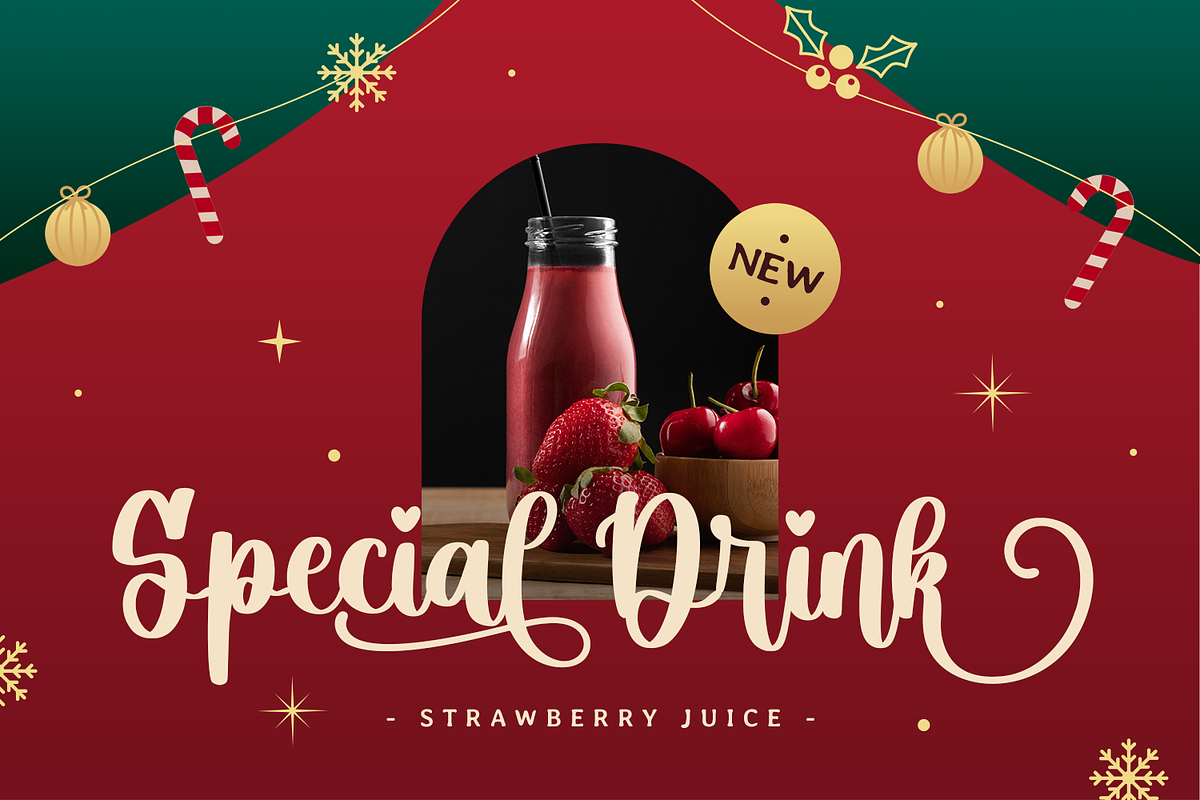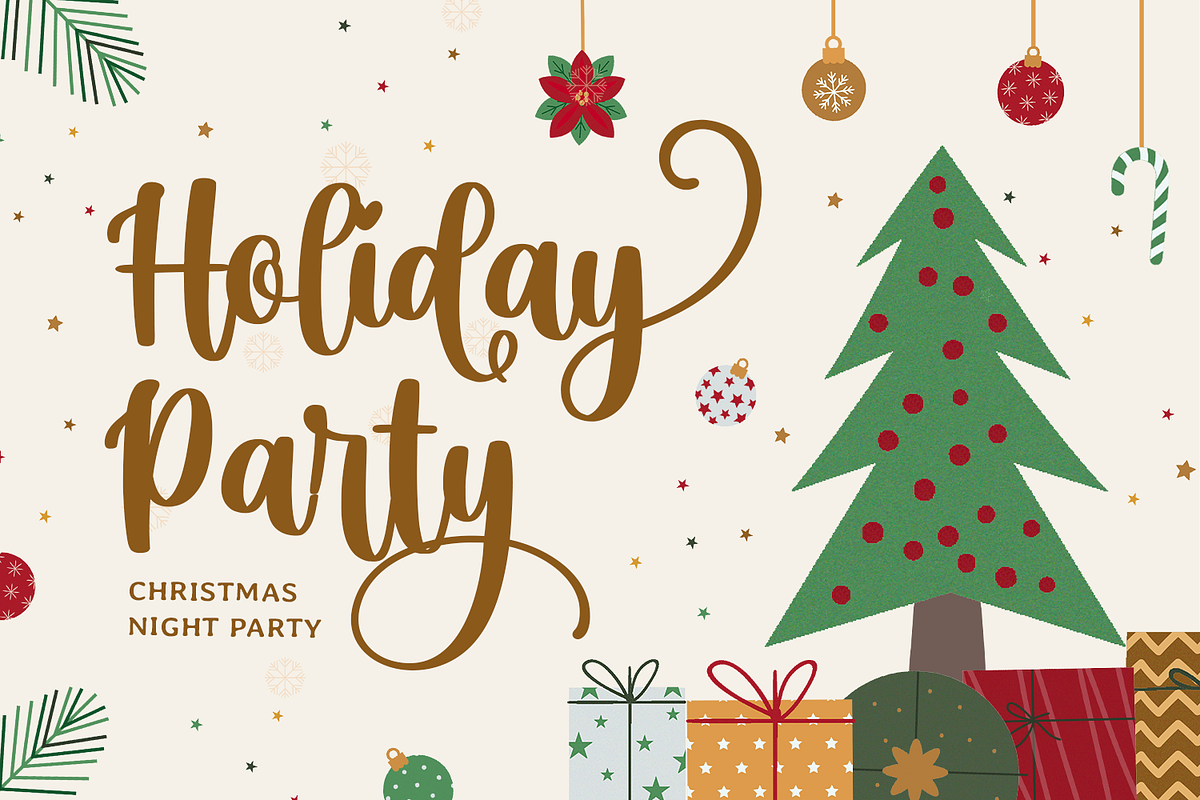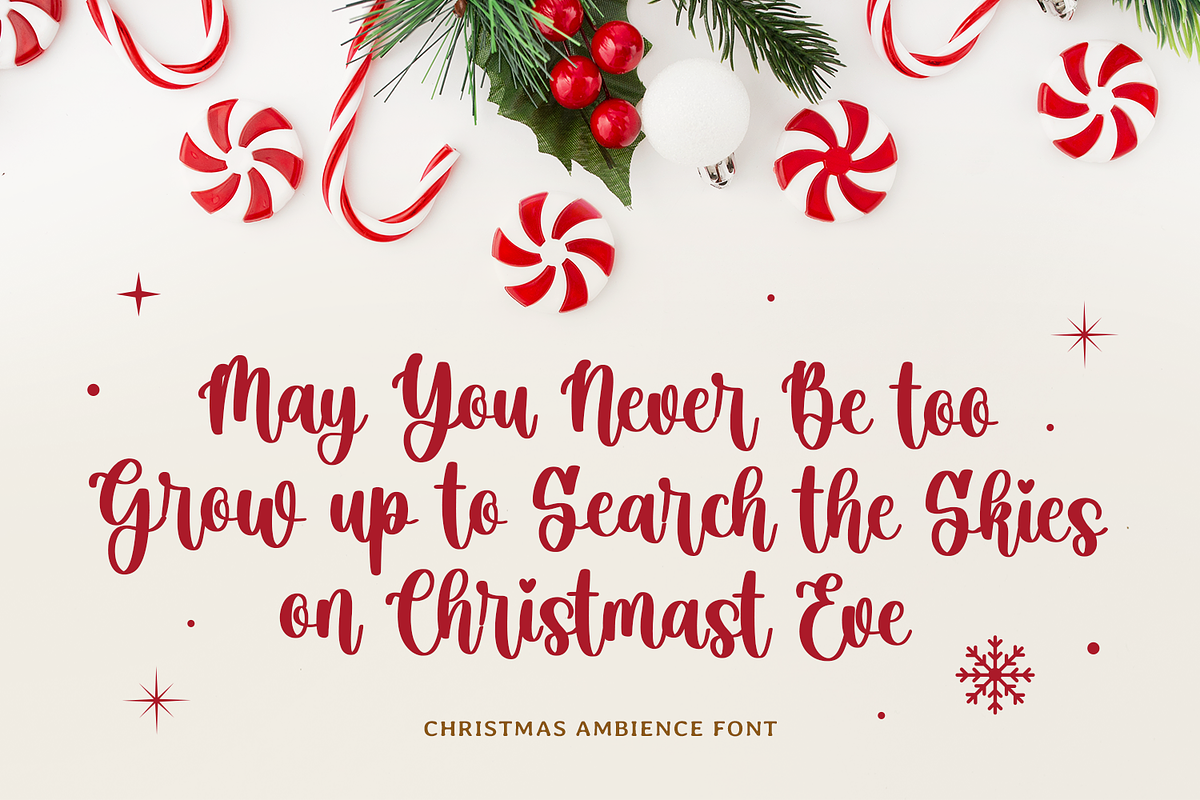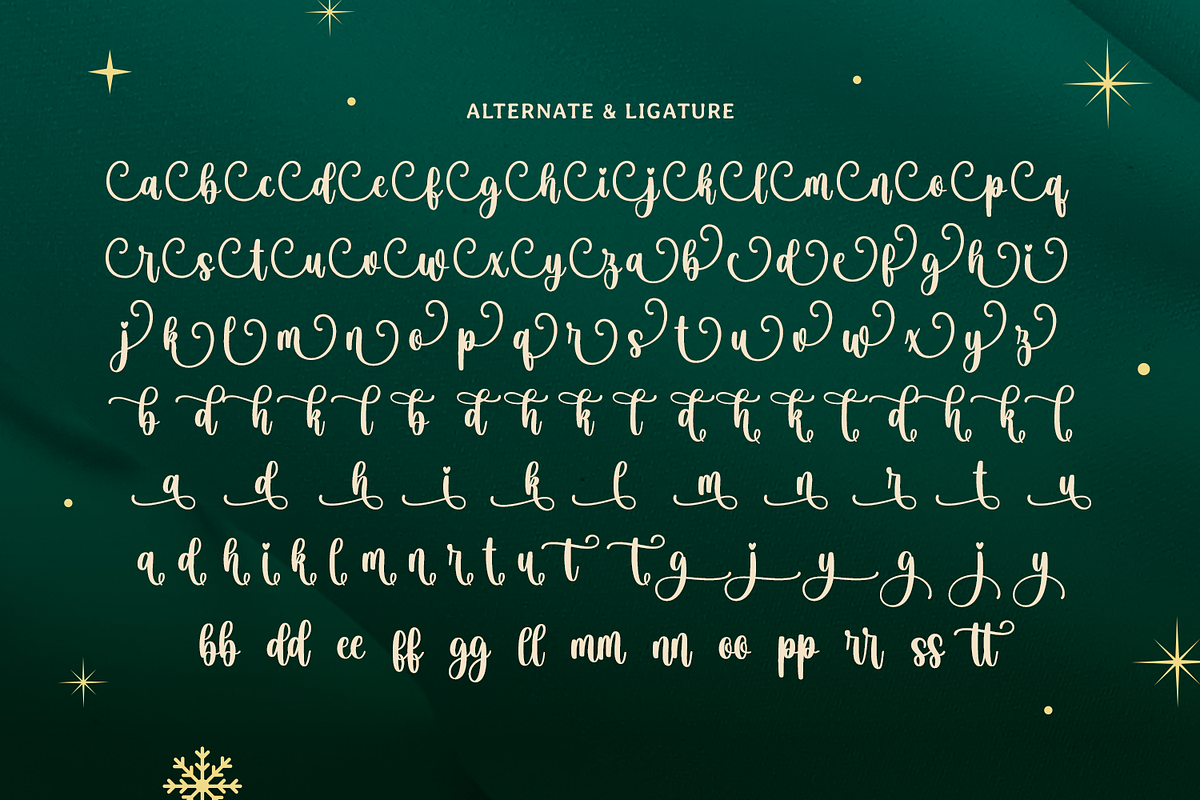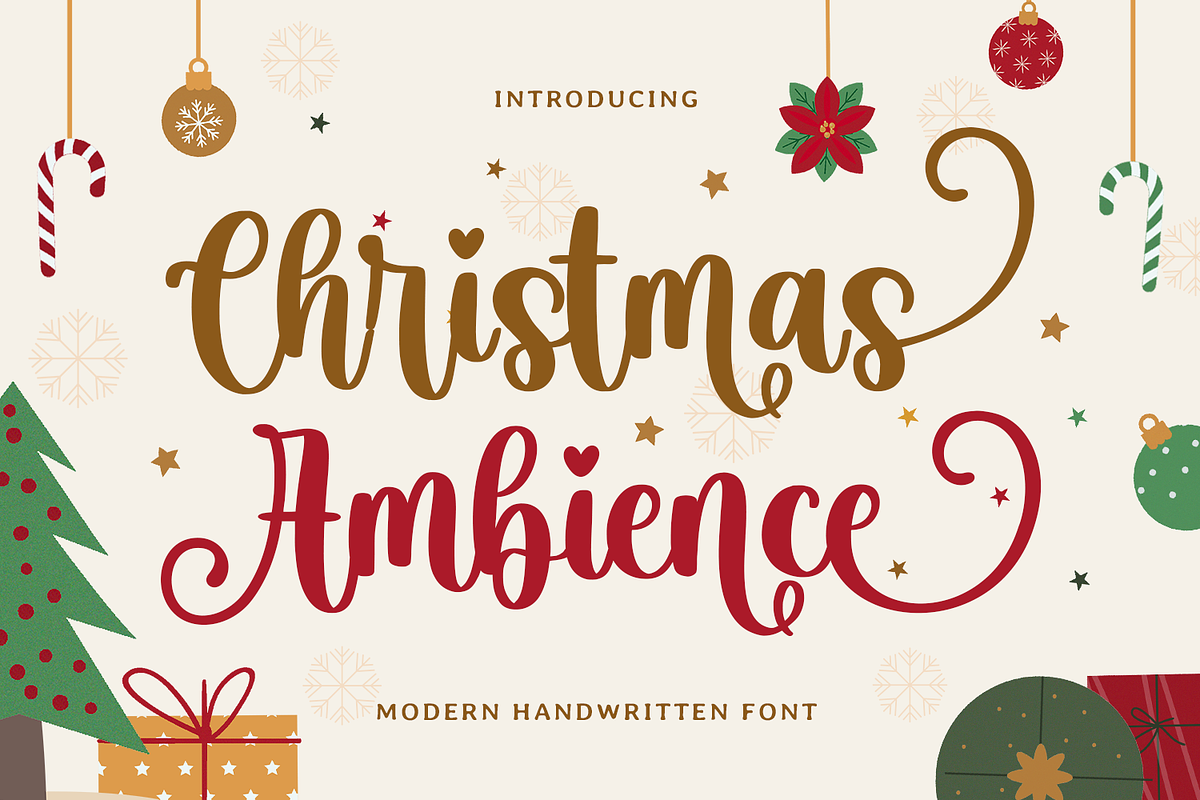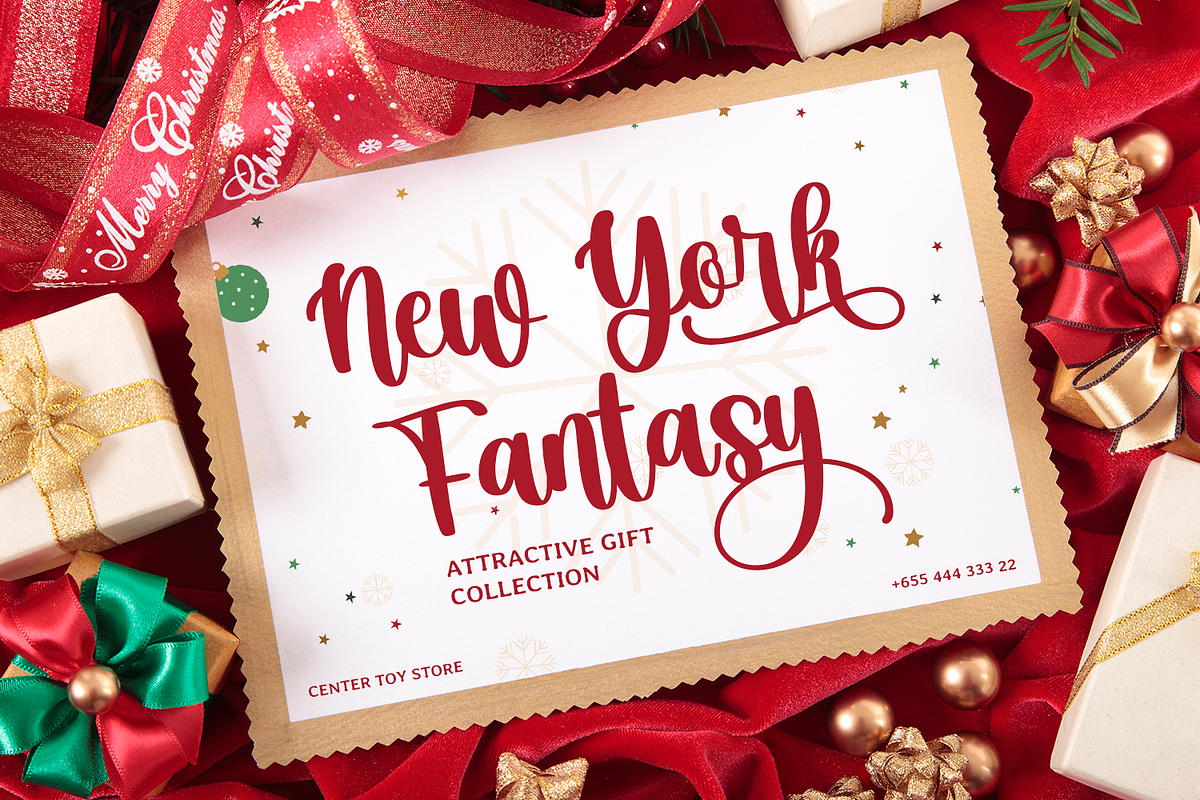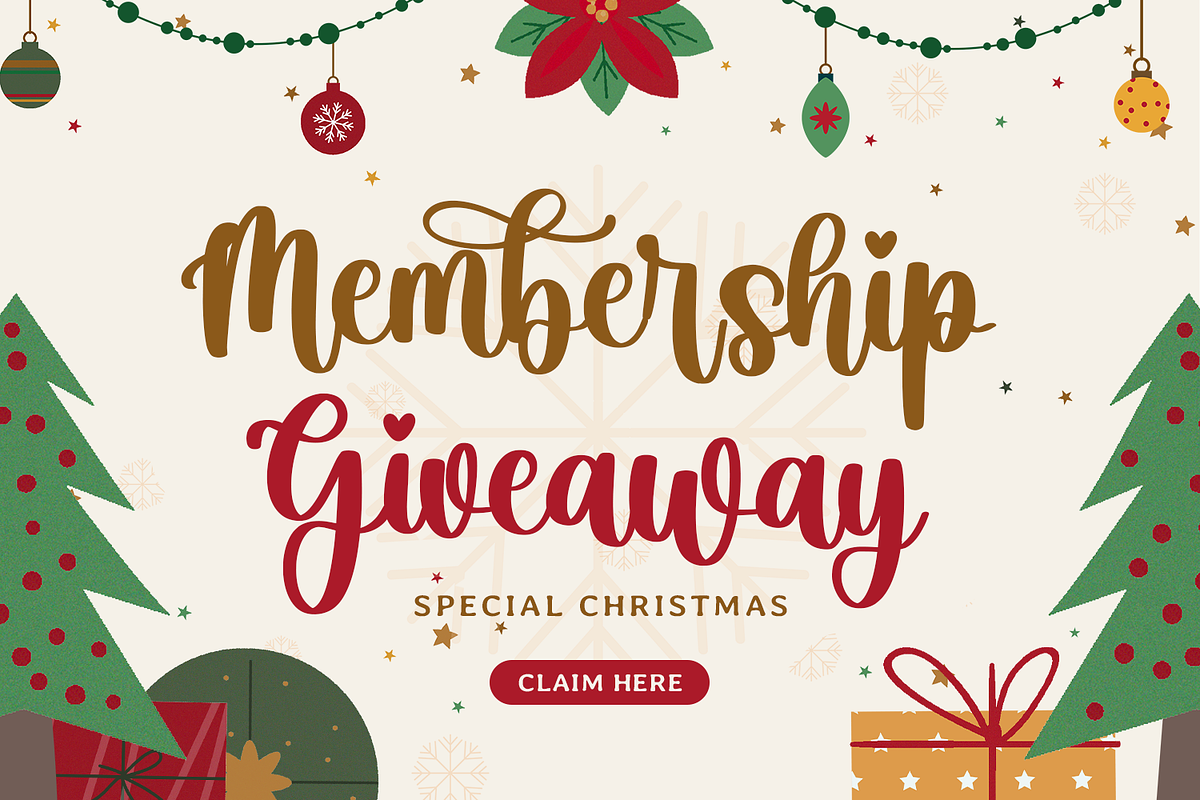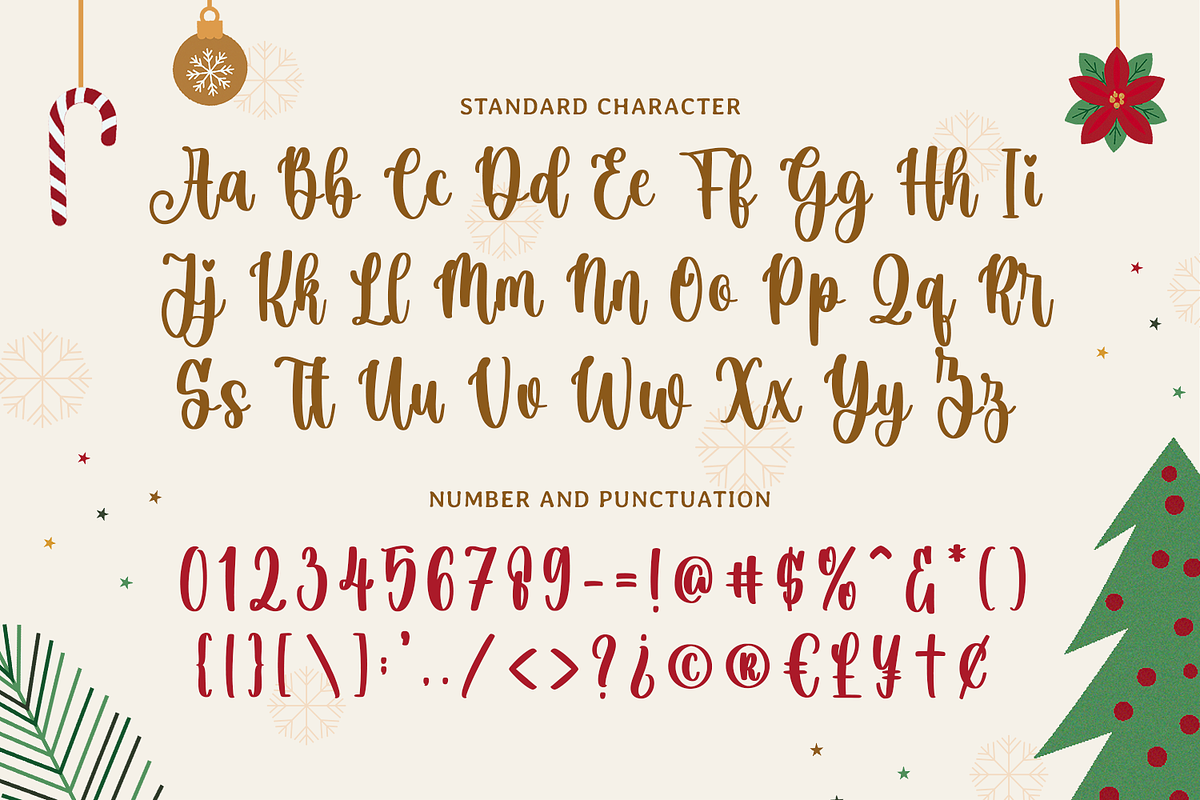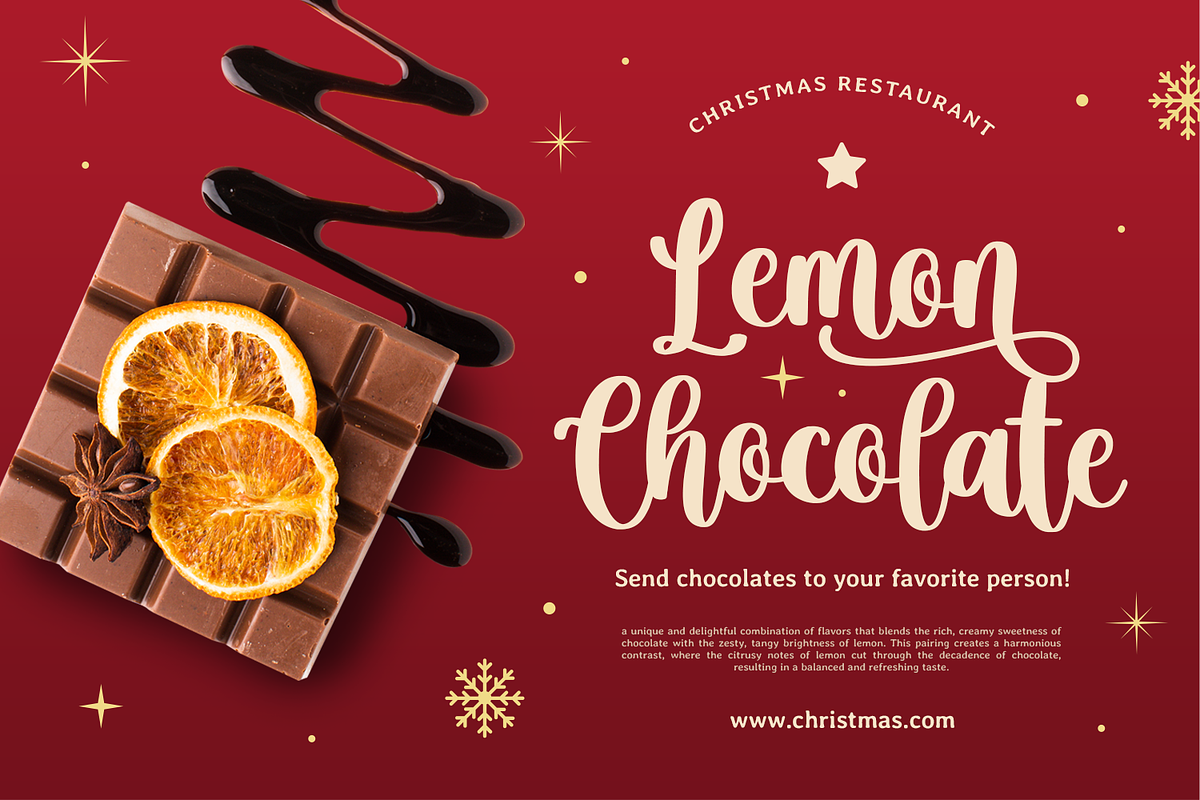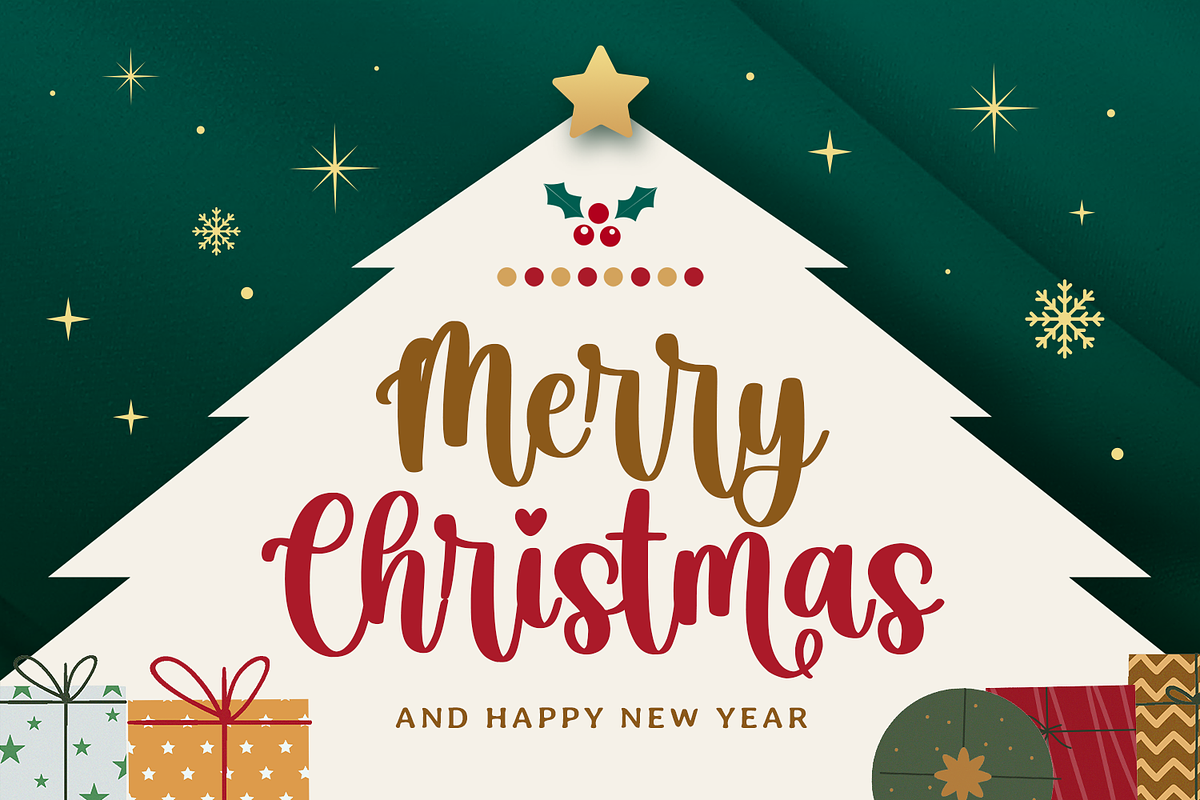
Christmas Ambience
Christmas Ambience is a stunning script font that embodies the warmth and charm of the holiday season. With its smooth monoline strokes and whimsical handwritten style, this font is perfect for Christmas, New Year, winter, Easter, Thanksgiving, and festive craft projects. Its elegant yet playful design makes it a versatile choice for both decorative and functional creations.
This font shines with unique features, including beautifully crafted tails on beginning and ending swashes. These details add a graceful flow to every word, making it ideal for holiday cards, gift tags, Cricut designs, embroidery, and SVG projects. The blend of quirkiness and sophistication captures the heart of seasonal celebrations, bringing joy and elegance to any design.
Christmas Ambience pairs seamlessly with festive themes, whether for cozy winter decorations or cheerful Easter lettering. Its monoline consistency ensures a clean, polished look, while its whimsical curves add a playful and lively vibe. This font is an excellent choice for creating standout invitations, banners, and social media posts that embody the spirit of the holidays.
Perfect for crafters, designers, and hobbyists, Christmas Ambience elevates every project with its enchanting details and flowing characters. It’s ideal for bringing life to seasonal decor, DIY projects, and heartfelt messages, making it a must-have for holiday-themed designs.
- Standard & Multilingual glyphs.
- Alternate glyphs & Unique Ligature.
- Fonts include multilingual support for; Afrikaans, Danish, Dutch, French, German, Indonesian, Irish, Italian, Norwegian, Portuguese, Scottish, Spanish, Swedish, Swiss etc.